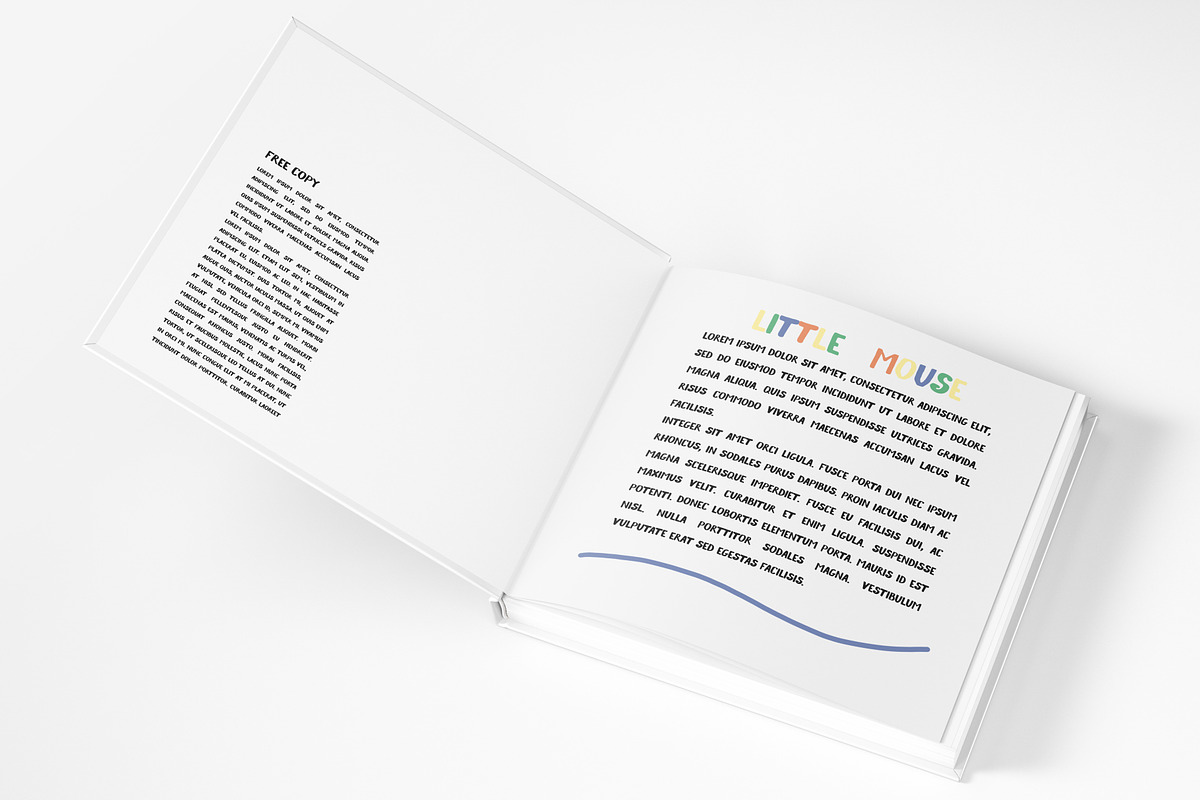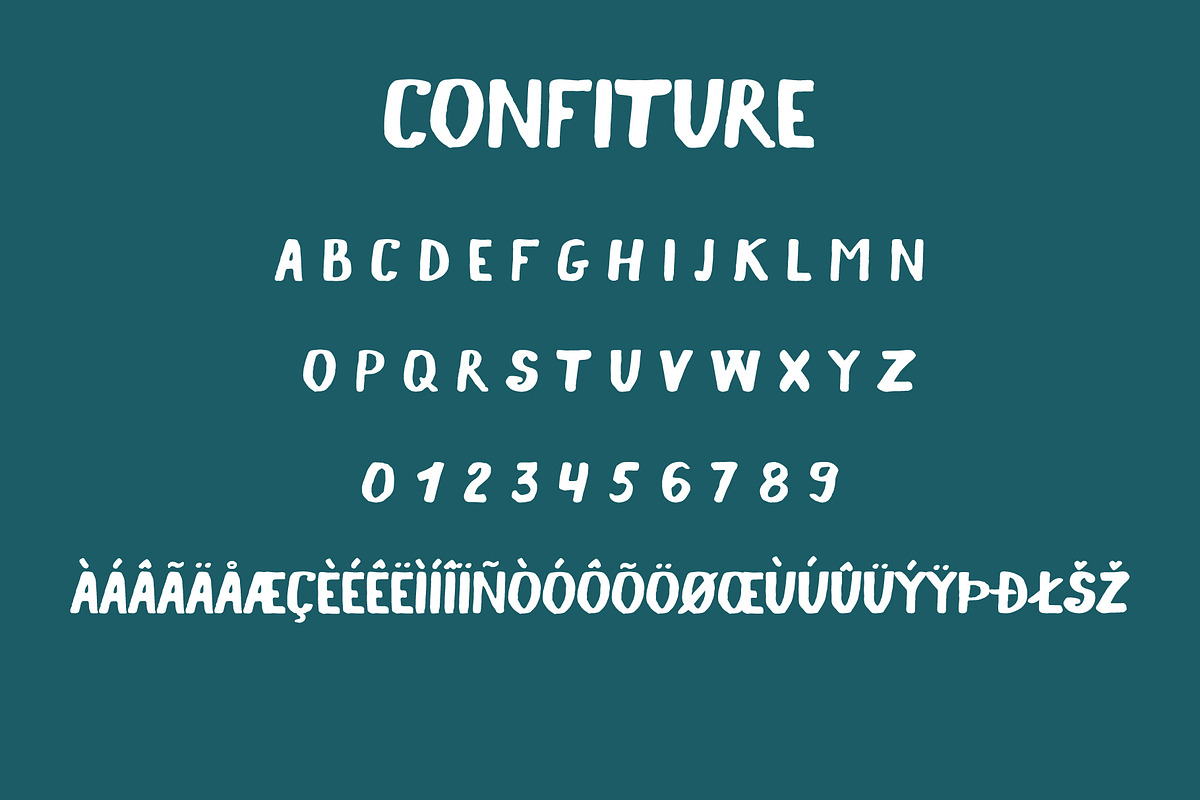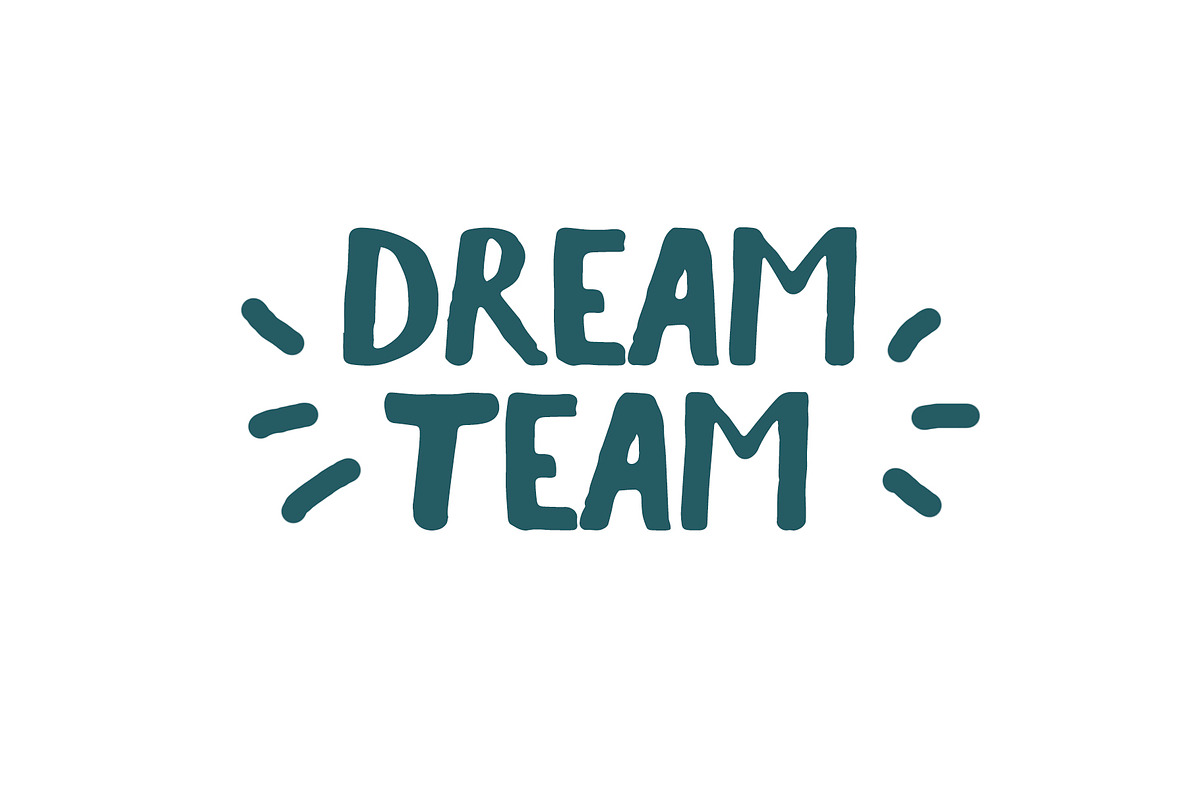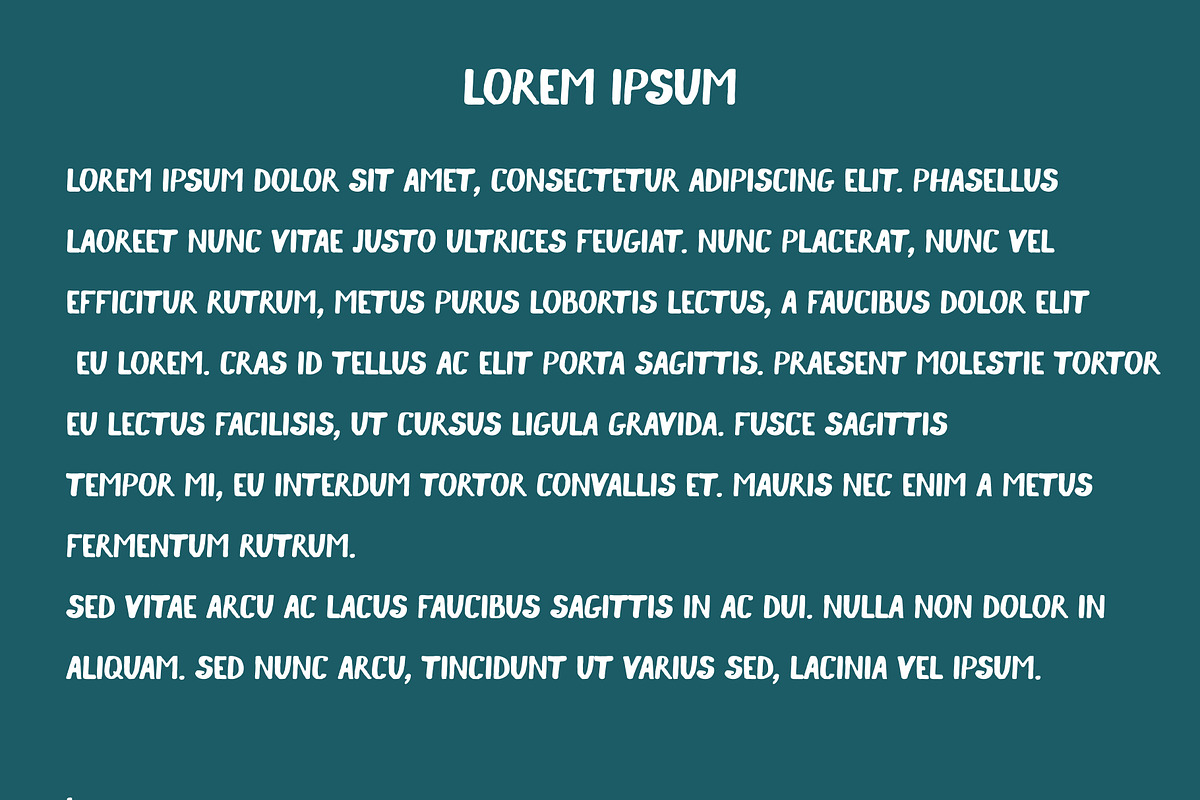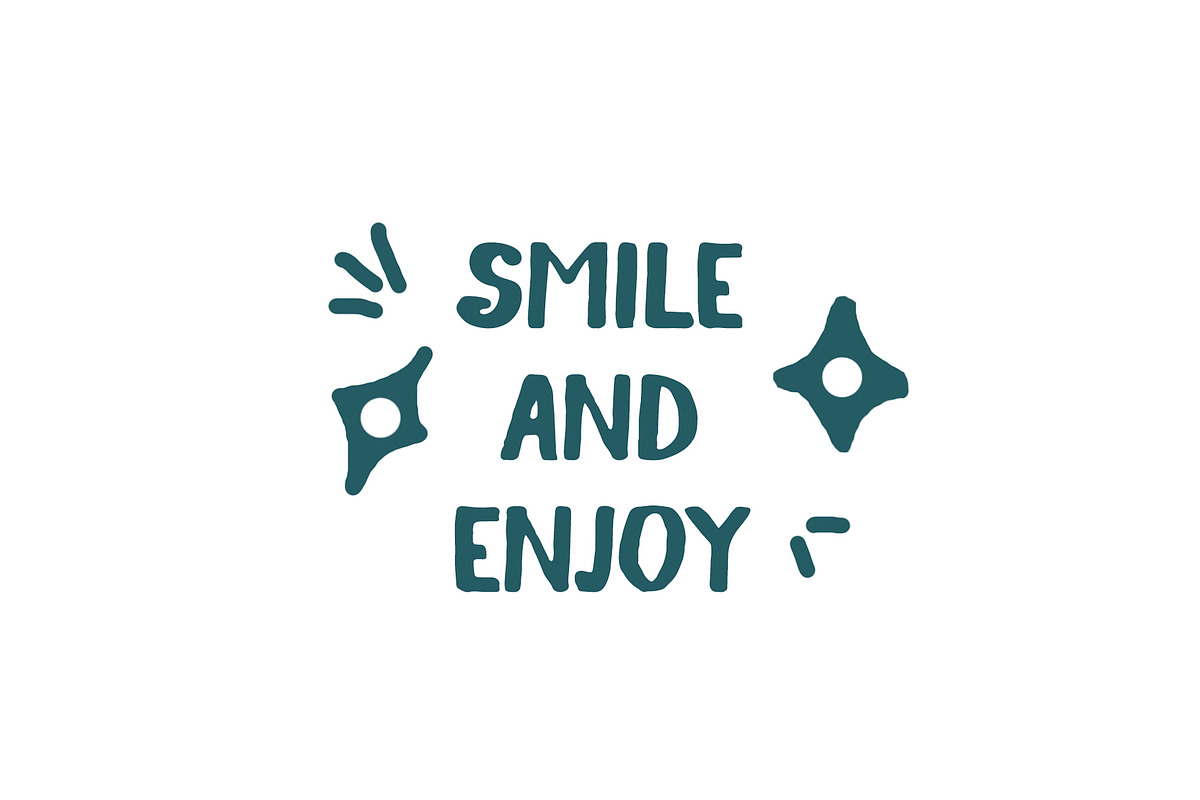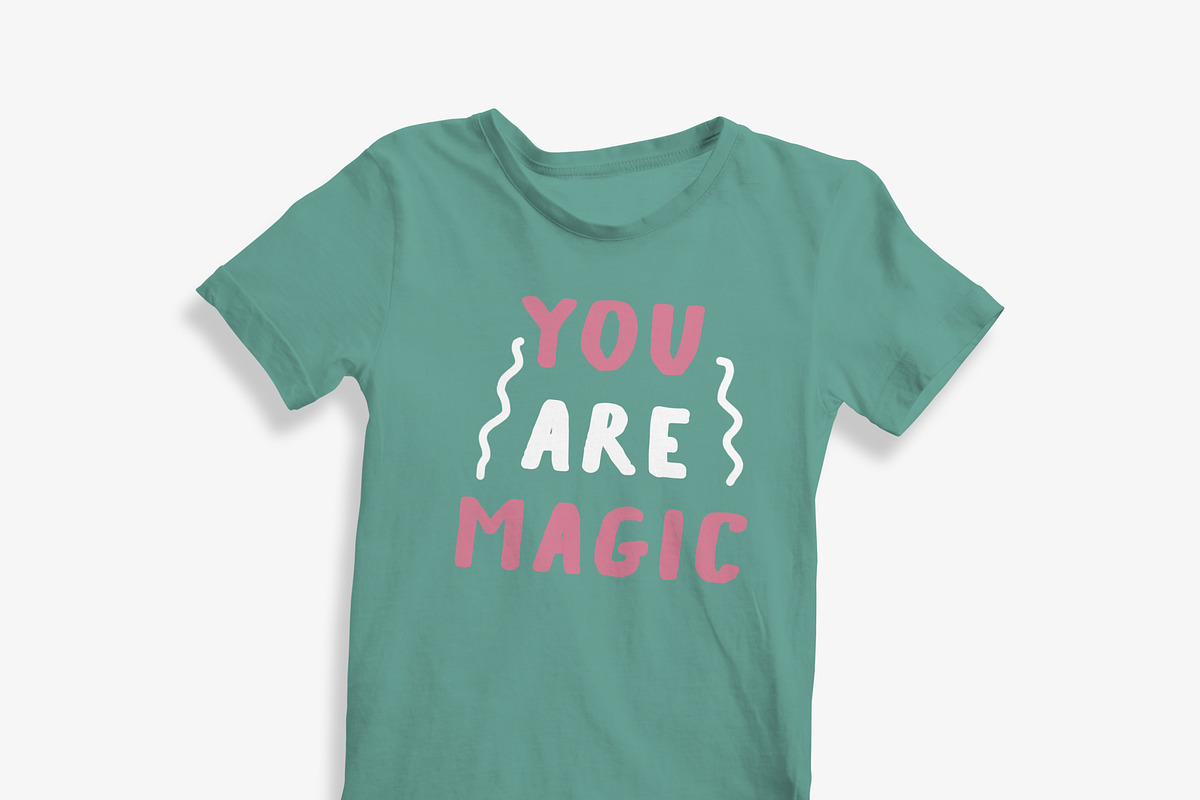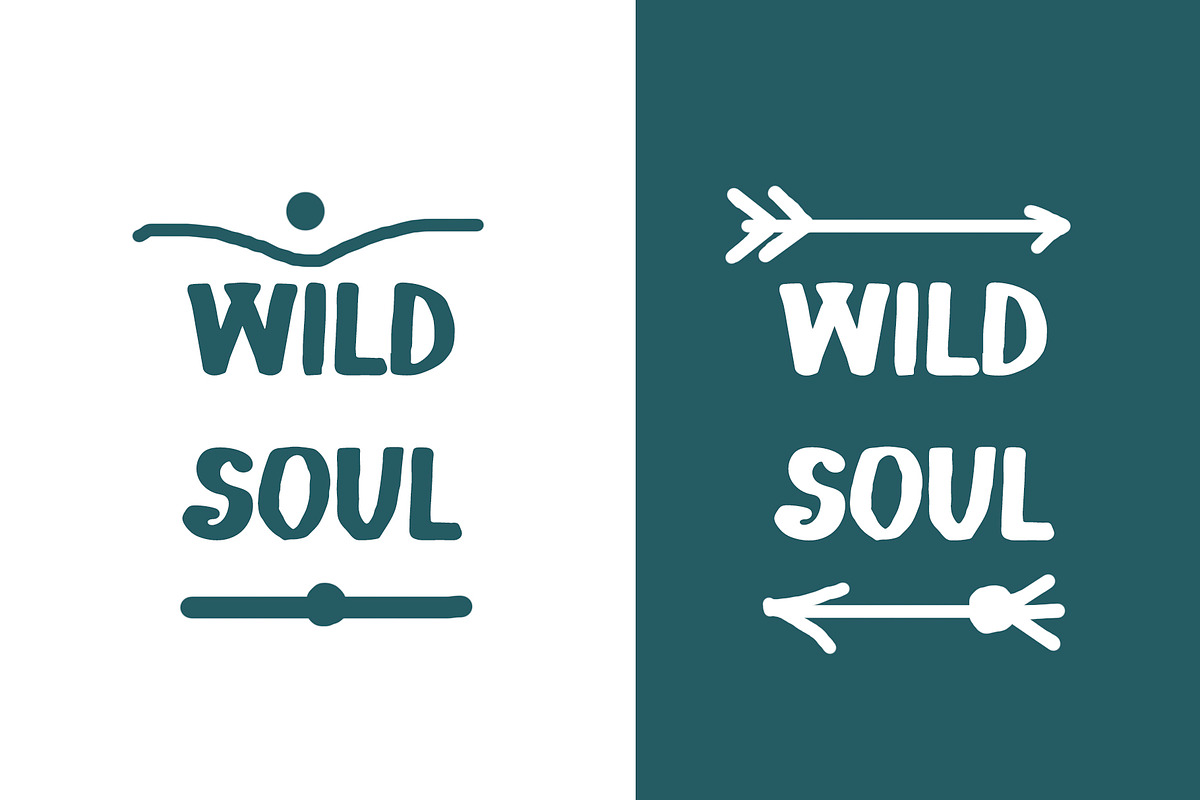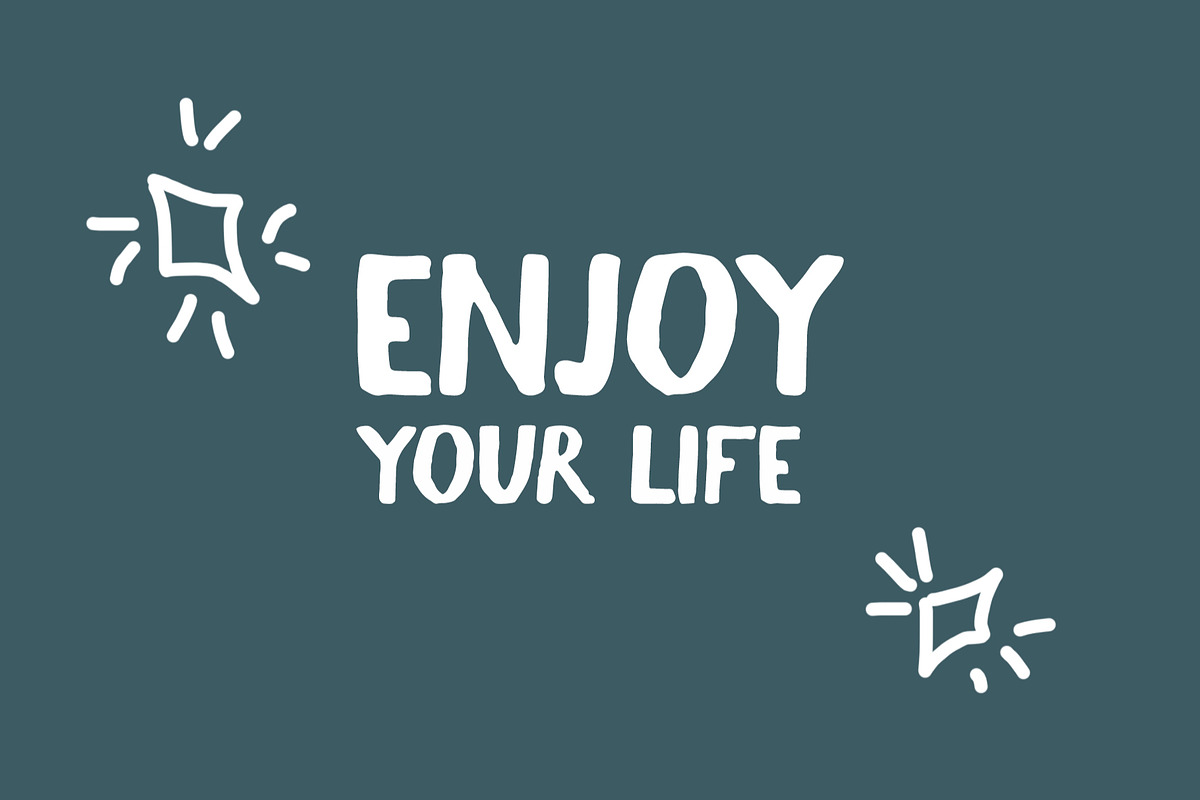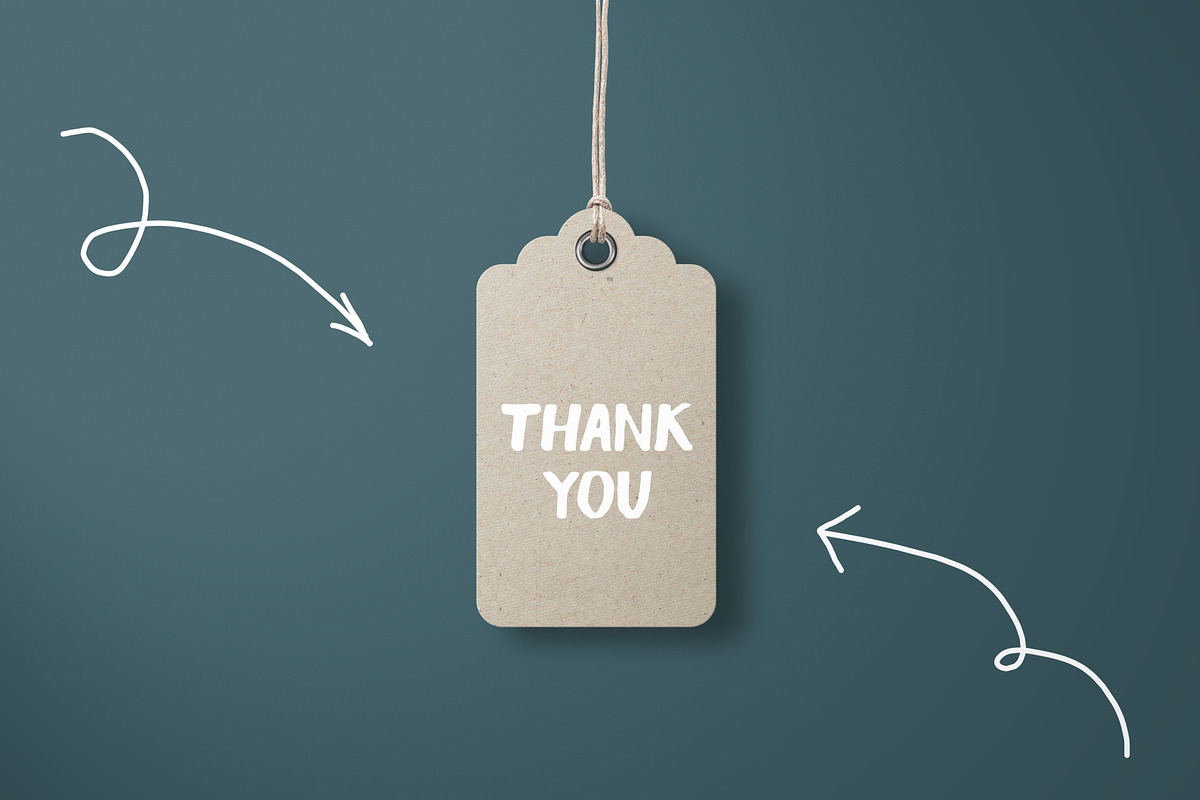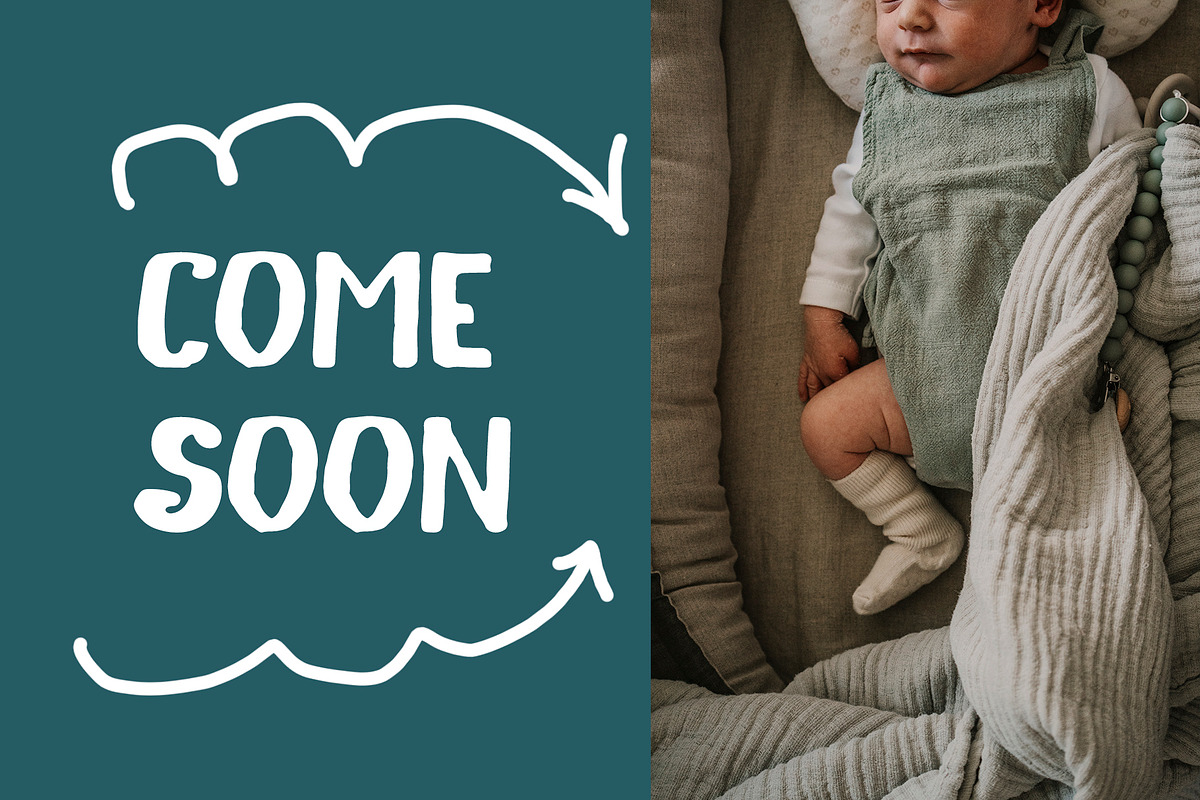
Confiture
Confiture Font
Confiture Font a super universal and useful hand-lettered bold typeface.
It is perfect for:
- flyer
- greeting cards
- packaging
- children cover book
- quotes
- logo
- cloth etc.